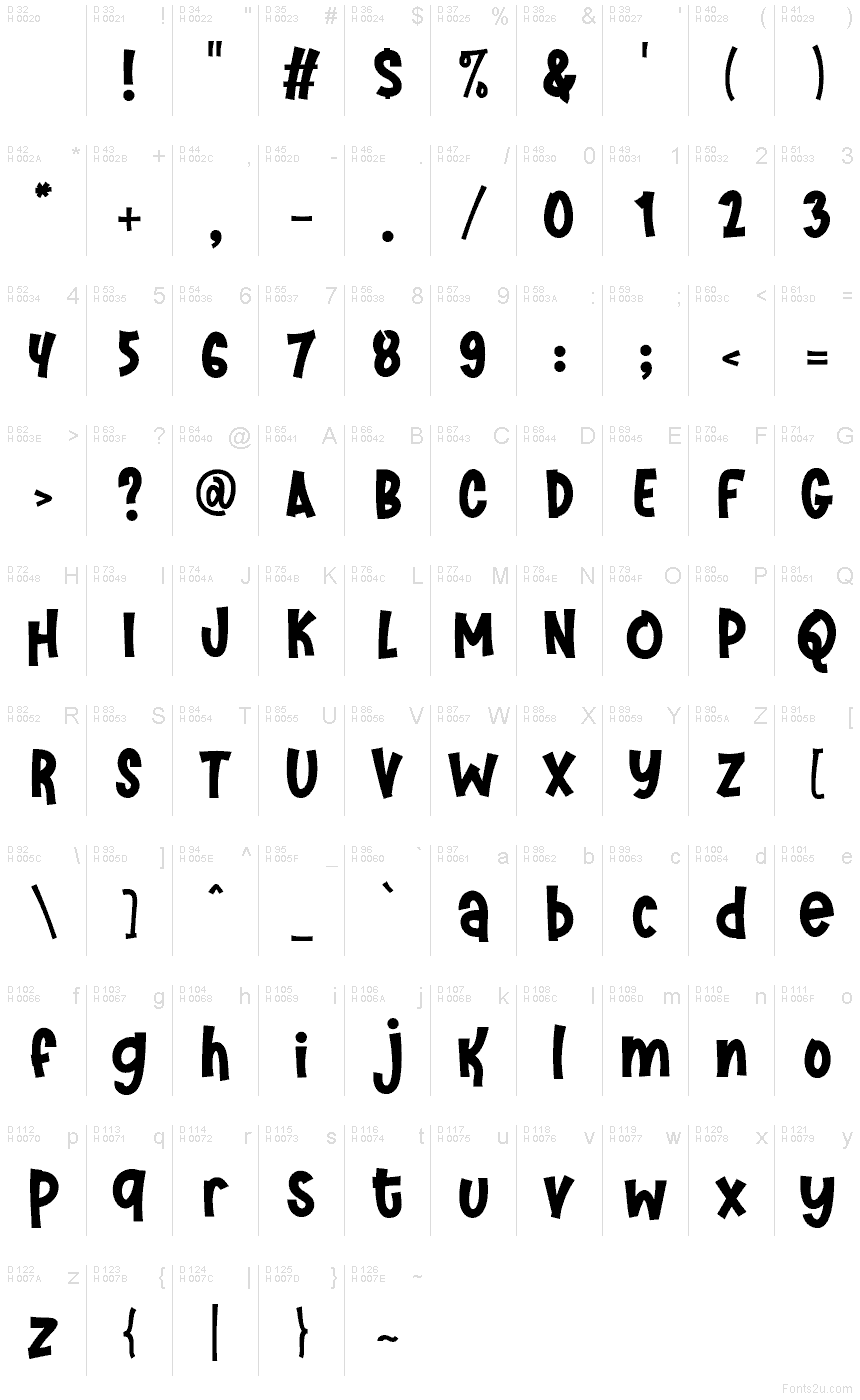
Garden Flower
Garden Flower font by Dm Letter Studio - Dimas Prasetyo is a free bold comic display font. It leans into a lively, hand-drawn swing—thick, inky strokes, soft corners, and a gently bouncing rhythm that reads loud and friendly. The shapes feel plump and organic, like cut paper with slightly uneven edges, giving headlines an easy, crafty charm without losing clarity.
Using Garden Flower, your work shines on kids’ book covers, classroom posters, farmers’ market signage, craft packaging, garden event flyers, playful logos, and social stickers. This free font holds attention at large sizes and stays legible in quick glances thanks to its open counters and steady spacing. Pair it with a clean geometric sans to handle small text, and give it a touch of extra tracking when you want a breezier, sunshiney vibe.